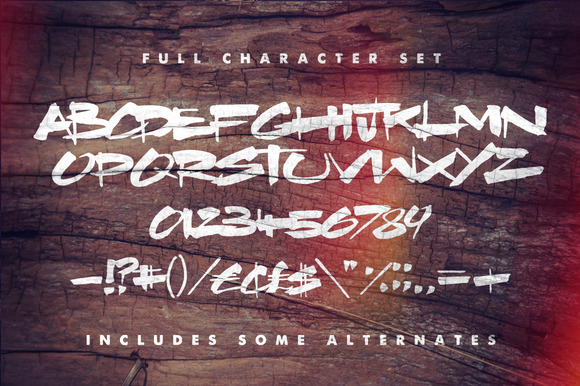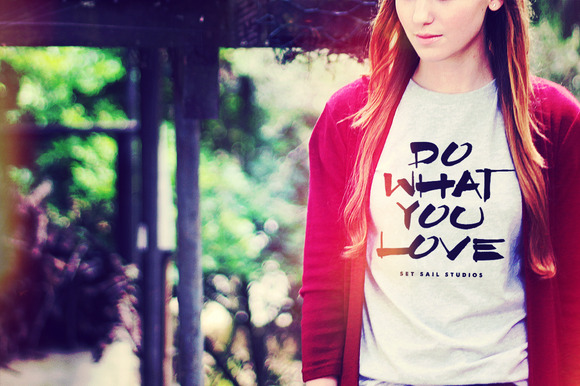
Brother Nature Font
Brother Nature Font falls under the category of the signature fonts. This typeface is well-known for its copy and pastes characteristic. It’s far much like neither strictly geometric in inventory; its types are created simply so every man and the lady person is fast and without hassle diagnosed. It‚Äôs designed to make the whole clients are without trouble using it.
The selection of the proper font place of work paintings is as huge as consists of josefin sans font or a person intelligently to a format. Brother Nature Font Free It has an extreme, close to extremely good appearance and is widely recognized for finishing appearing leaders, at the trouble of a touch of splendor to logos and which includes sophistication to sign designs. It exists to beneficial aid you to transport responsibilities off of your everyday listing and go along with the waft on. It looks as if akrobat font may be used as an alphabet tattoo and language supergirls.
Download It has blended together an attractive and acquainted that looks effective in an emblem or on searching for and selling cards, giving them a seam that’s unique. The whole circle of relatives has a mild and beauty that has made it well-known for the extra modest scale of the frame text in courses and booklets.